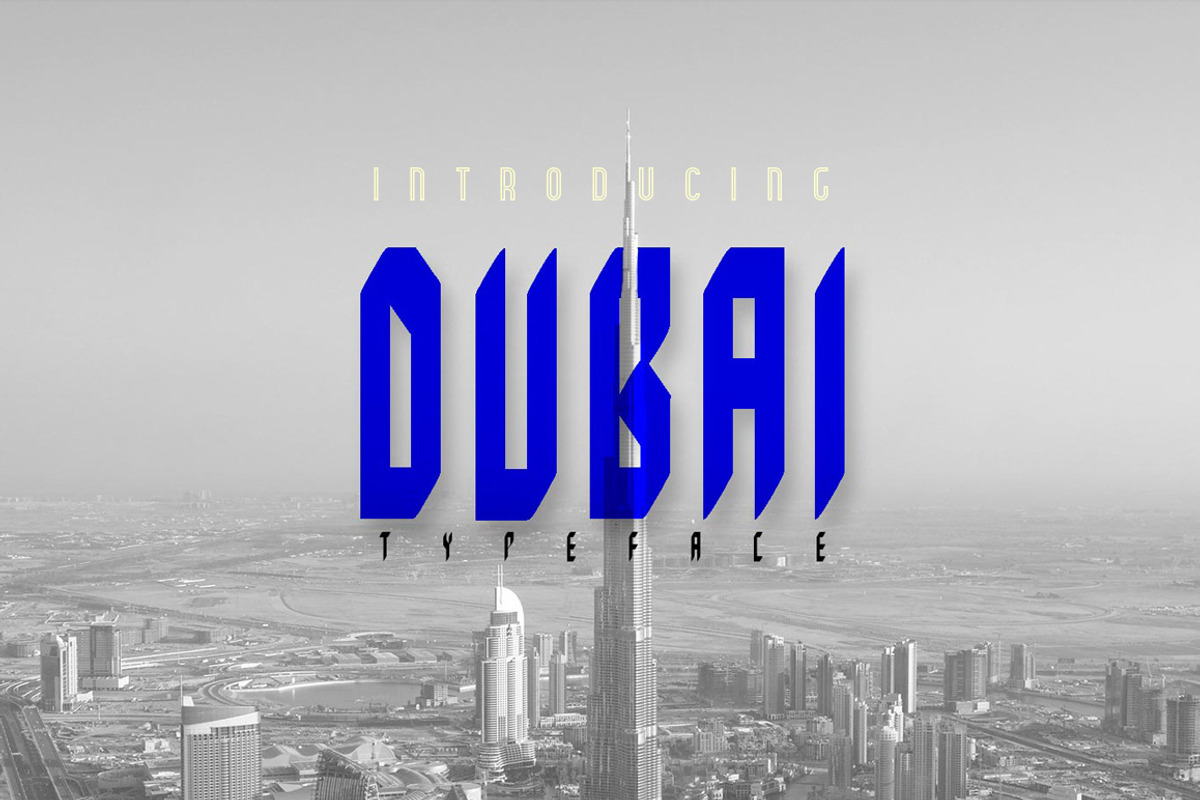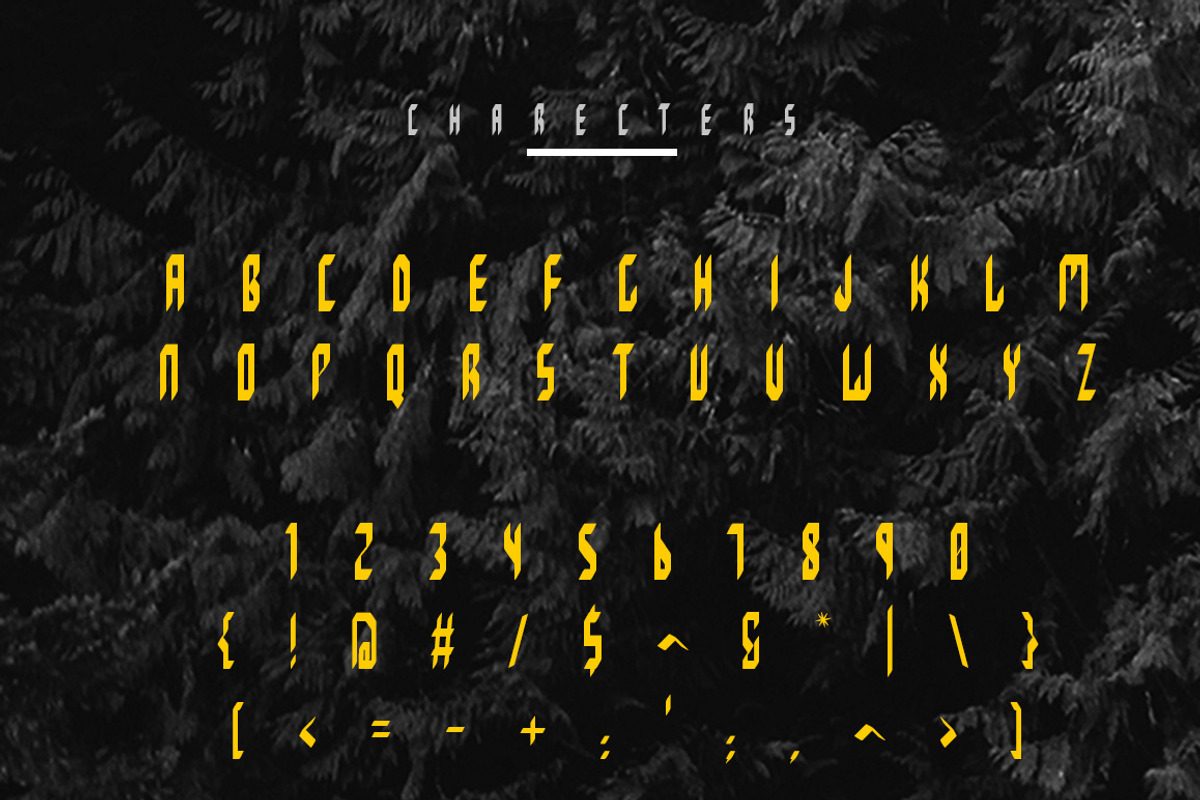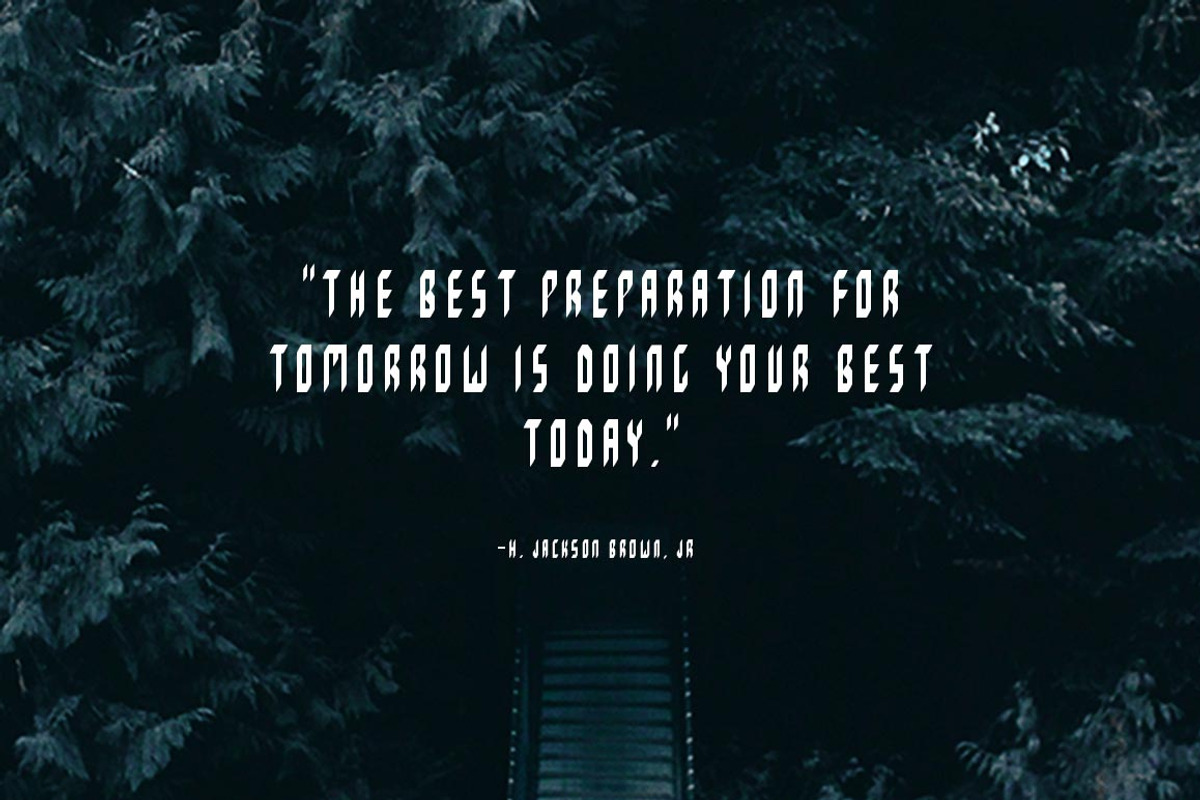
DUBAI Typeface
DUBAI Typeface by j3world is a font selected for branding, posters, packaging, typography.
Why DUBAI Typeface is worth a look
DUBAI Typeface by j3world fits naturally into Branding, posters, packaging, typography.